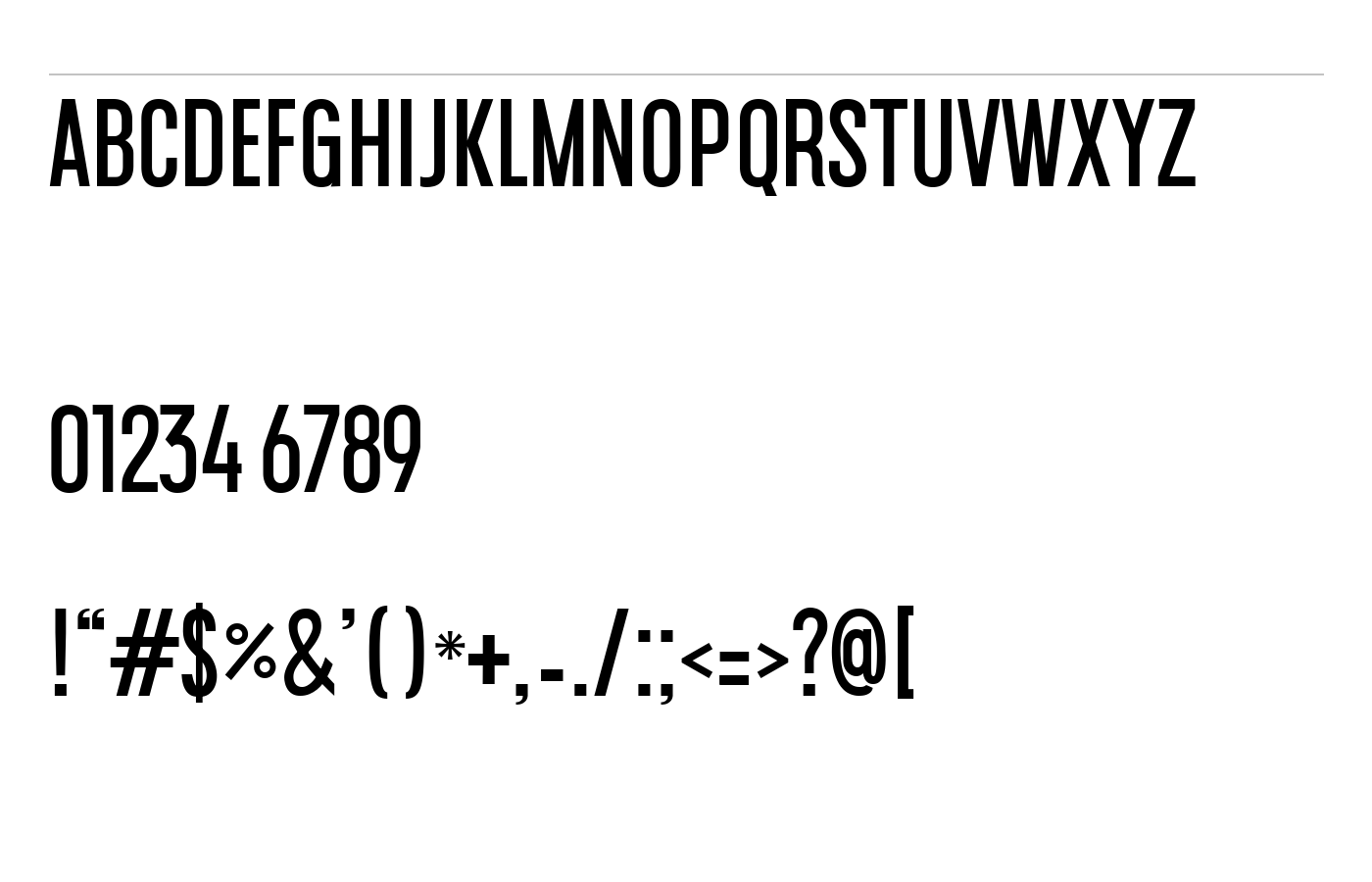
Americana is a bold, condensed sans serif font with a clean and modern appearance. Its tall, narrow letterforms and consistent stroke width make it highly legible and impactful, perfect for creating strong headlines and striking logos. This font works well in branding, editorial design, and advertising where a confident, urban, and contemporary feel is desired.
Americana Font
About Americana Font
| Font family | Americana Font |
| Designer | munster studio |